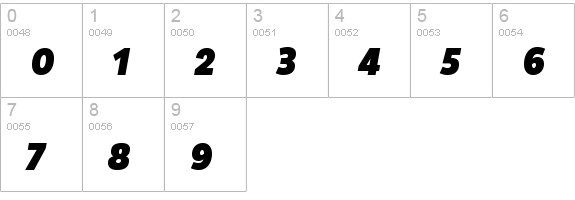
Pluto Cond Black Italic Font Details
Pluto Cond Black Italic is a maximum-weight, dramatic, condensed-width, italic variant in the Pluto typeface family \xE2\x80\x94 well suited to maximum-impact headlines, posters, and packaging.
Pluto Cond Black Italic font is a bold and dynamic typeface that exudes modernity and sophistication. Its sleek and elegant design is perfect for adding a touch of contemporary flair to any project. The italicized style adds a sense of drama and emphasis, making it ideal for titles, headings, and branding materials. The best part? Pluto Cond Black Italic font is completely free to download at FontsMarket.com. Whether you're working on a graphic design project, creating a website, or designing marketing materials, this font is sure to make a statement. Don't miss out on the opportunity to elevate your designs with this stylish and versatile typeface. Download it today and let your creativity shine!